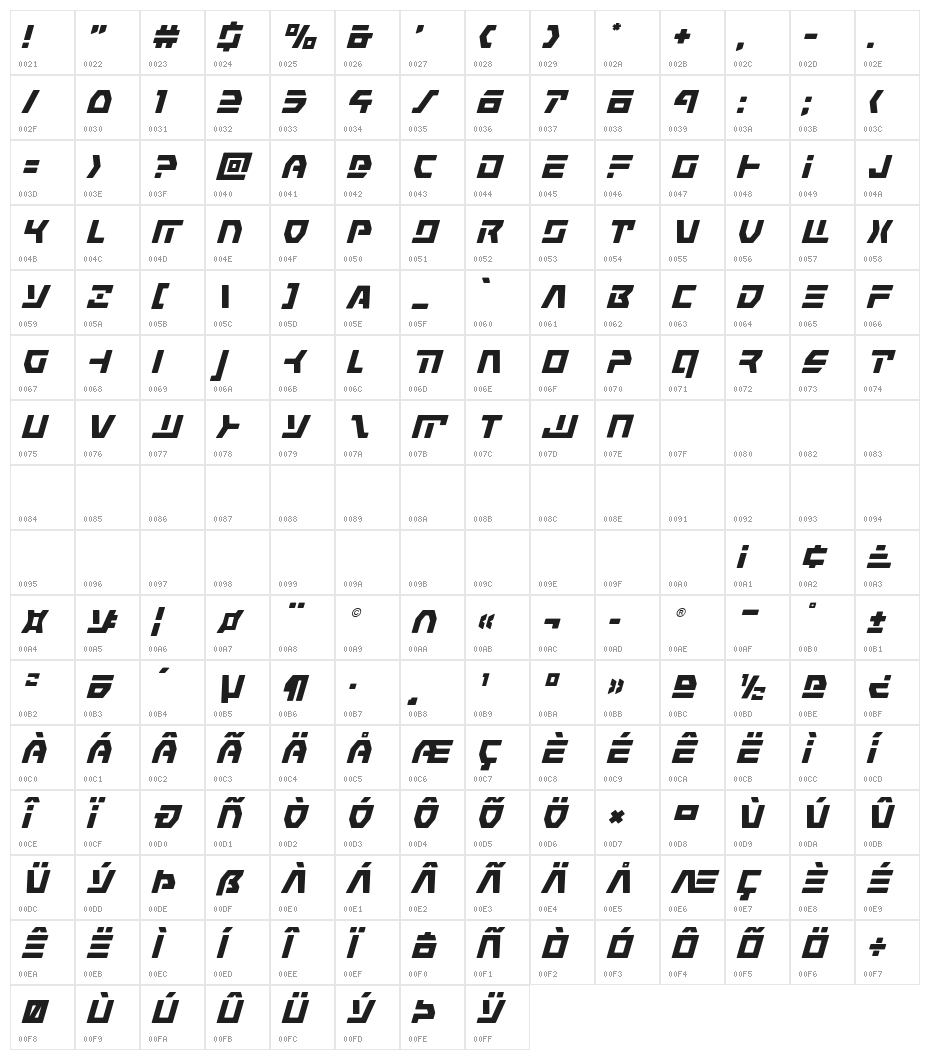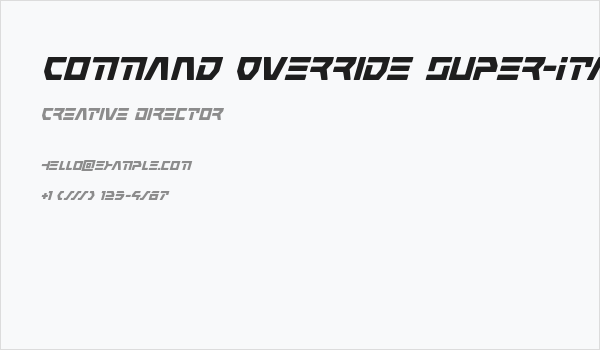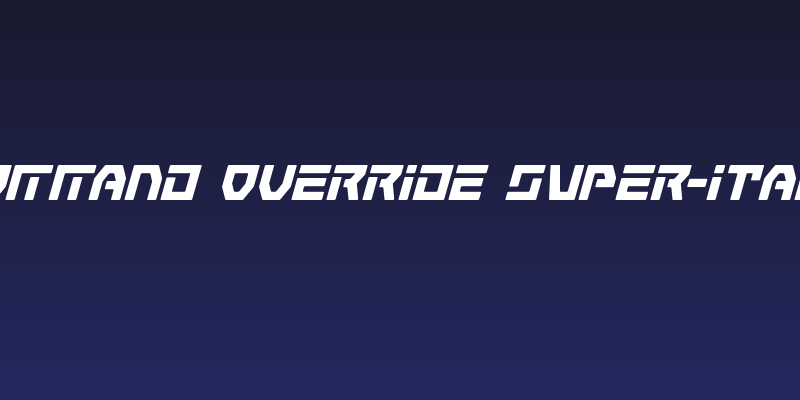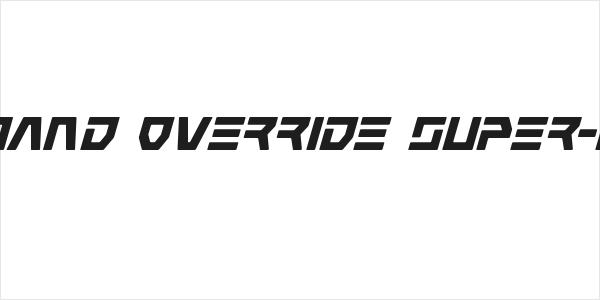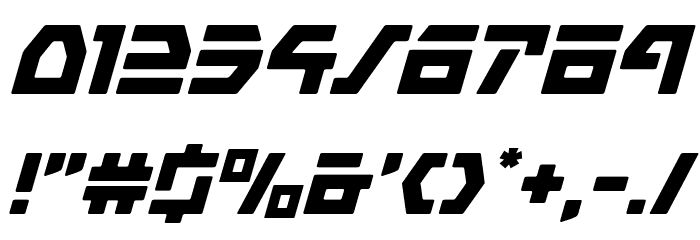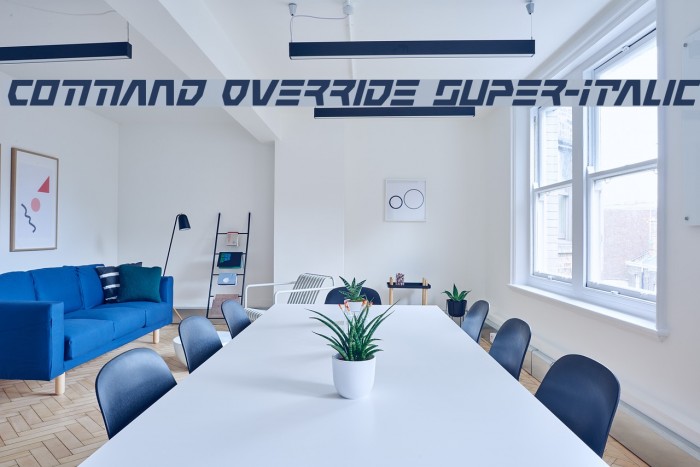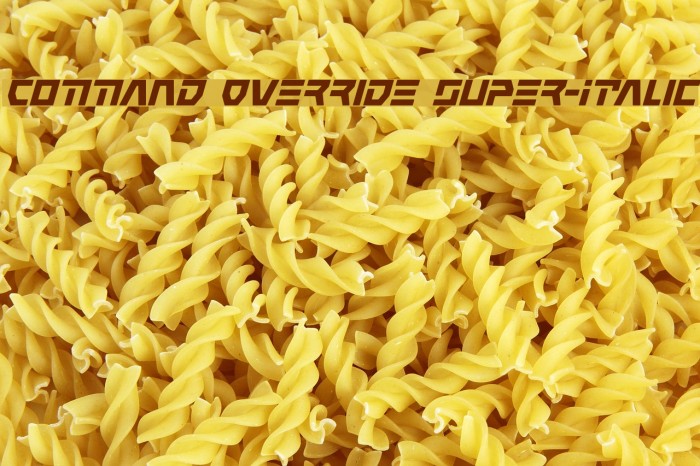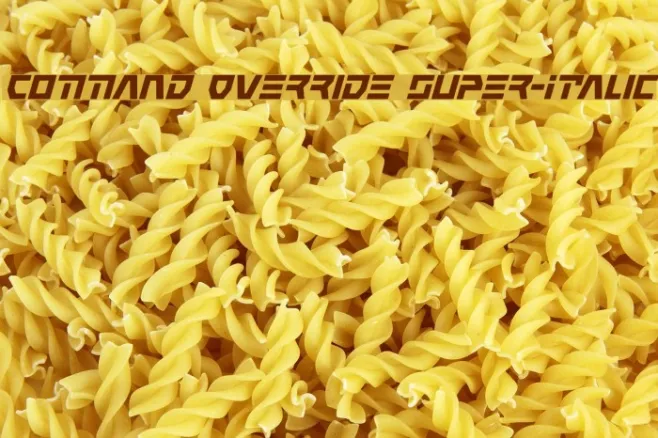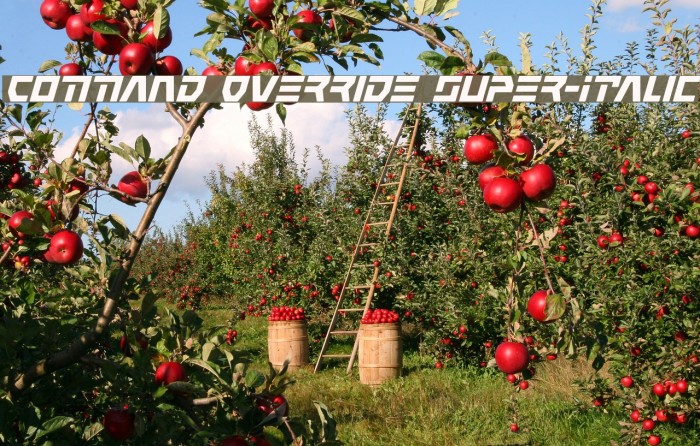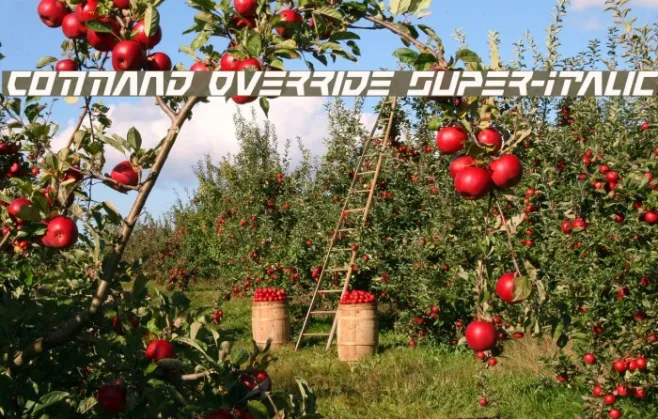
Command Override Super-Italic Font
Command Override Super-Italic Description
This font features a futuristic and angular design, characterized by its bold and italicized letterforms. The geometric shapes and sharp edges give it a dynamic and modern appearance, suitable for conveying a sense of speed and technology. The uppercase and lowercase letters maintain a consistent style, with a slight slant that enhances its italic nature. The numbers and special characters are designed to match the overall aesthetic, ensuring uniformity across all glyphs. The font's unique style makes it stand out, making it ideal for projects that require a strong visual impact.
| Proposed Projects | Ideal for technology branding, sci-fi themed designs, video game titles, and futuristic posters. |